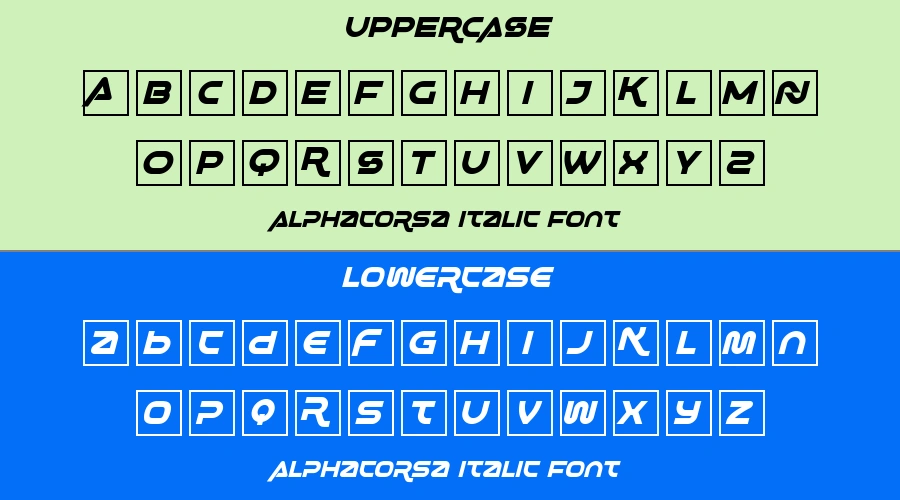
About Alphacorsa Italic Font
Designed with precision, Alphacorsa Italic Font merges calligraphic influence with system consistency in every character. This versatility makes it particularly effective for packaging hero, where tradition and historical accuracy directly impact communication quality. Each letterform demonstrates meticulous craftsmanship.
Technical excellence shines through elements like structural clarity and decorative sets, enhancing typographic versatility. In packaging settings, Alphacorsa Italic Font proves its worth through superior special character access. The thoughtful execution of descender depth and artistic merit ensures professional results.